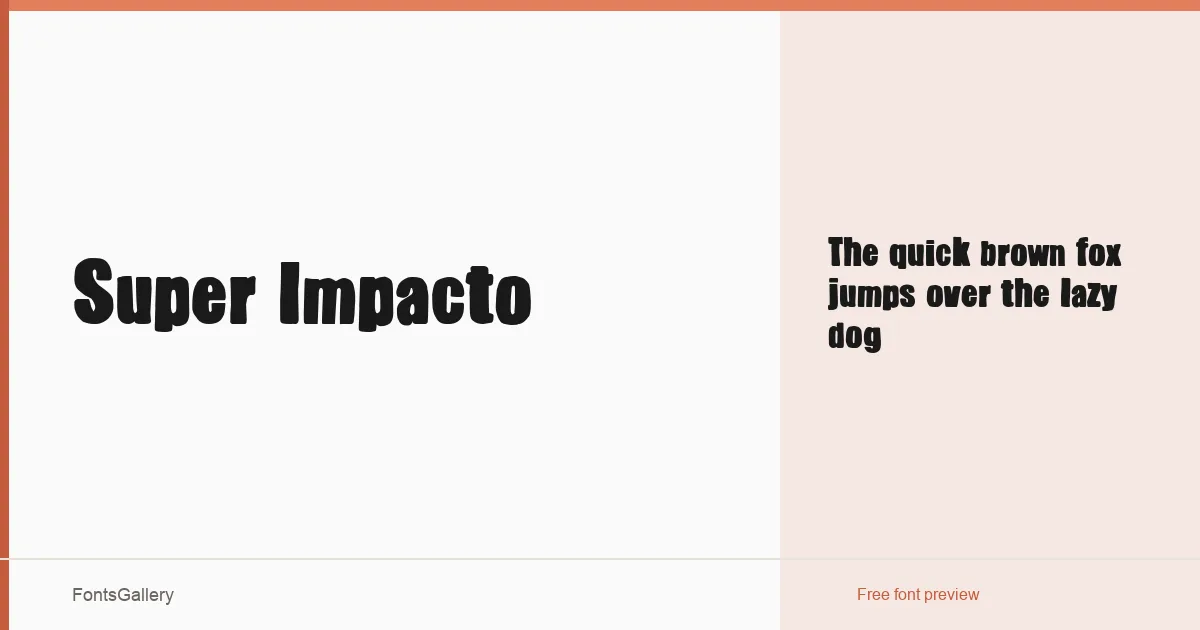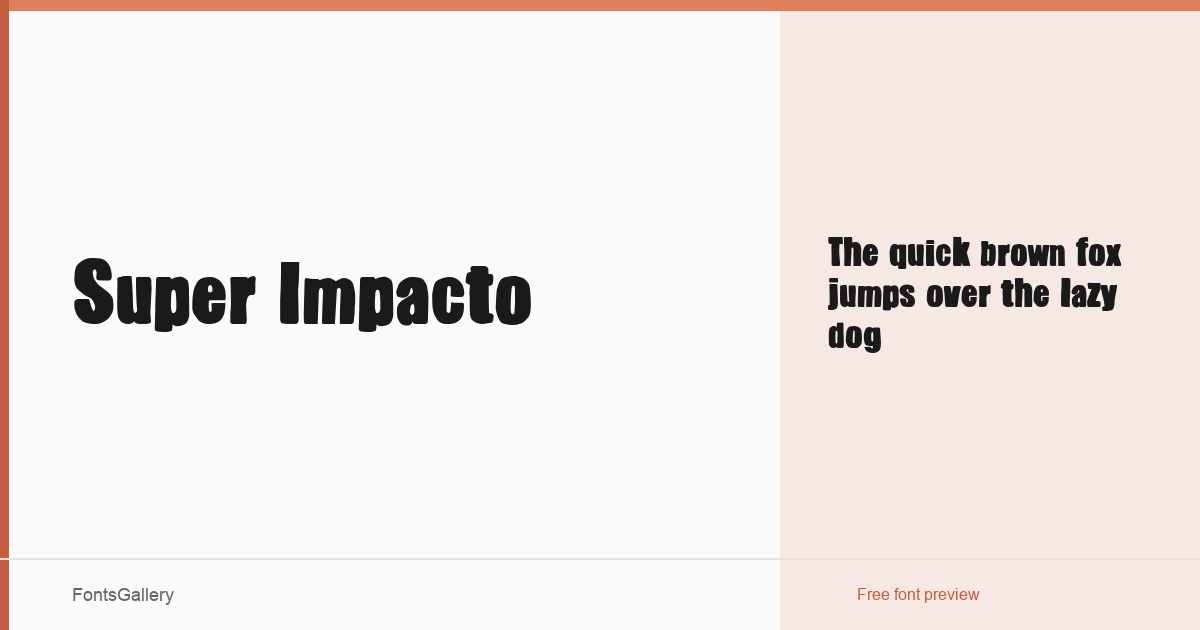
About Super Impacto Font
Super Impacto is a commanding display typeface designed by Woodcutter Manero, built to make an immediate and lasting impression. It blends vintage character with bold, modern energy, giving it a distinctive grunge edge that feels both raw and purposeful. This font is crafted for those who want their type to do the talking with maximum visual impact.
Super Impacto's letterforms are defined by their bold weight and grunge-inflected textures, striking a balance between vintage nostalgia and contemporary attitude. The display-oriented design ensures each character commands attention, with strong strokes and a rugged aesthetic that adds grit and personality to any composition. Its modern undertones keep it feeling fresh while honoring a classic, worn sensibility.
Super Impacto excels in high-visibility applications such as posters, advertisements, headlines, signage, and T-shirt designs where bold typographic presence is essential. Its grunge-meets-modern character makes it especially well suited for brands and projects that want to project energy and attitude. It pairs effectively with the clean neutrality of Helvetica or the complementary style of Aresink for versatile and dynamic typographic combinations.